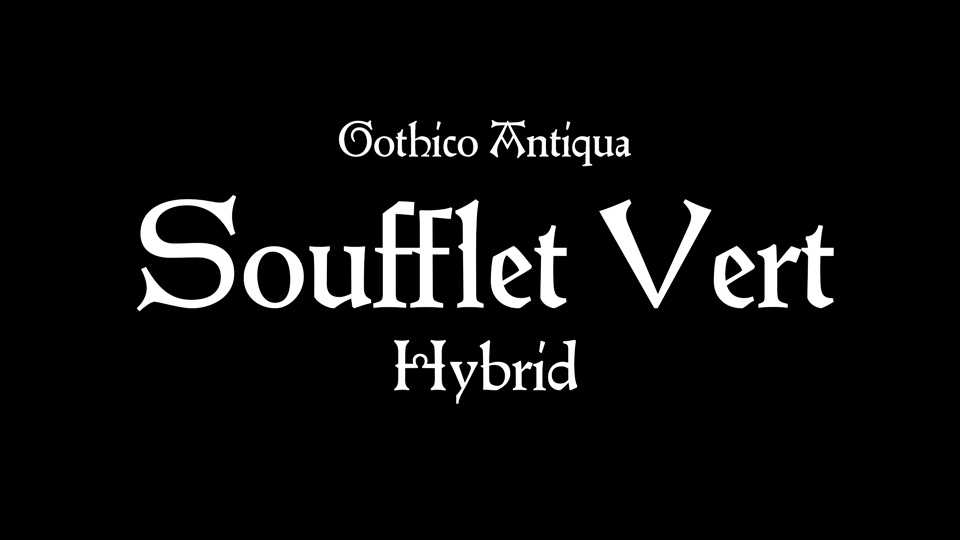
Download Soufflet Vert font, Hybrid cut in Paris by the Au Soufflet Vert workshop for Guido de Monte Rochen’s Manipulus curatorum, 1476 and used until 1480. Type design workshop at ISBA Besançon and Bibliothèque d’étude et de conservation de Besançon, May 2018.
Designer: ANRT Type